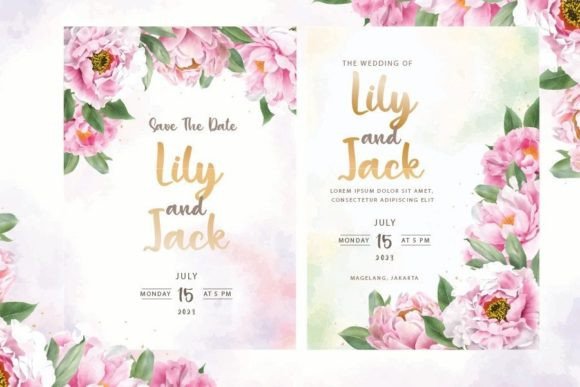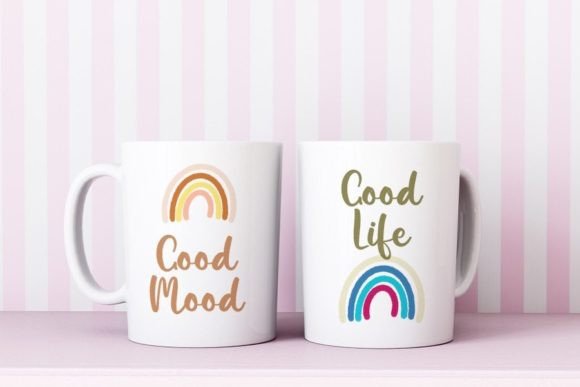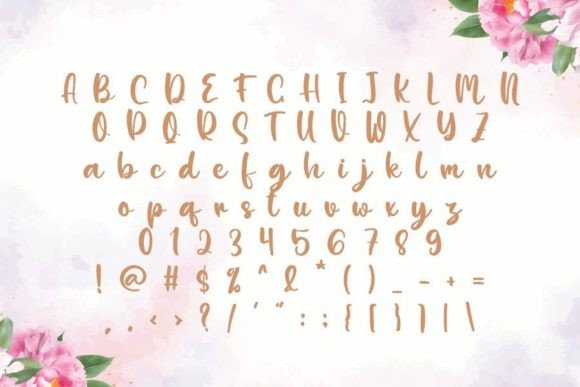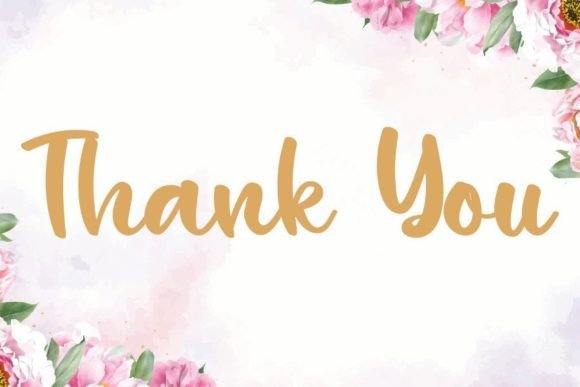
Introducing Bright Mary Font: Elevate Your Designs with Elegance
In the world of typography, a well-crafted font can make all the difference in elevating your design projects from ordinary to extraordinary. If you’re on the hunt for a font that exudes elegance, sophistication, and a touch of modern flair, look no further than Bright Mary Font. Inspired by timeless classic calligraphy, Bright Mary is an elegant script font that brings a contemporary atmosphere and impeccable form to the table, making it the perfect addition to your typographic arsenal.
The Inspiration Behind Bright Mary
Bright Mary Font draws its inspiration from the classic calligraphy of the past, but with a modern twist. The creator aimed to craft a font that would not only pay homage to traditional calligraphic techniques but also incorporate a fresh, contemporary feel. The result is a font that feels both nostalgic and modern, capable of adding a touch of sophistication to a wide range of design projects.
Key Features of Bright Mary Font
So, what sets Bright Mary apart from other script fonts on the market? Here are a few key features that make it stand out:
- Balanced and Varied: Bright Mary boasts a perfectly balanced weight, not too thin and not too thick. This balance ensures that the font remains legible and aesthetically pleasing across various applications. Additionally, the font offers varied strokes, providing a natural and organic feel that mimics hand-written text.
- Elegant and Contemporary: The font’s design strikes a beautiful balance between elegance and modernity. Its clean lines and fluid curves give it a contemporary atmosphere, while its classic roots keep it grounded and sophisticated.
- Versatility: Bright Mary is incredibly versatile, making it suitable for a wide range of design projects. Whether you’re working on a wedding invitation, a brand logo, a fashion magazine, or any other creative endeavor, this font is sure to enhance the beauty of your work.
Why Choose Bright Mary Font?
With so many fonts available to designers and crafters, why should you choose Bright Mary for your projects? Here are a few compelling reasons:
- Enhance Your Brand’s Aesthetic: If you’re looking to elevate your brand’s visual identity, Bright Mary can help. Its elegant and modern design can add a touch of sophistication to your branding materials, setting you apart from the competition.
- Perfect for Creative Projects: Whether you’re a graphic designer, a crafty DIY enthusiast, or a digital artist, Bright Mary can bring a new level of creativity and professionalism to your projects.
- Easy to Read and Write: Despite its elegant and cursive nature, Bright Mary remains highly legible, making it suitable for both headings and body text.
Tips for Using Bright Mary Font Effectively
To get the most out of Bright Mary Font, here are a few tips to keep in mind:
- Pair it with Neutral Fonts: For maximum versatility, pair Bright Mary with neutral, sans-serif fonts for body text. This contrast will make your headings pop while keeping the rest of your content easy to read.
- Experiment with Colors: Don’t be afraid to experiment with different colors. Bright Mary looks stunning in bold, rich colors, but it can also add a touch of elegance in subtle, pastel shades.
- Use it for Headings and Titles: While Bright Mary can be used for longer texts, it’s particularly effective for headings, titles, and short phrases. Its elegance and modernity make it a showstopper in larger sizes.
| Author | Brenna Newport |
Bright Mary Font is more than just a typeface; it’s a design statement. Its elegant script, balanced and varied strokes, and contemporary atmosphere make it a versatile and powerful tool for designers and crafters alike. Whether you’re looking to add a touch of sophistication to your branding, create stunning headings for your blog, or craft beautiful invitations, Bright Mary is sure to exceed your expectations. With its impeccable form and timeless inspiration, Bright Mary Font is ready to elevate your designs to new heights of elegance and creativity.